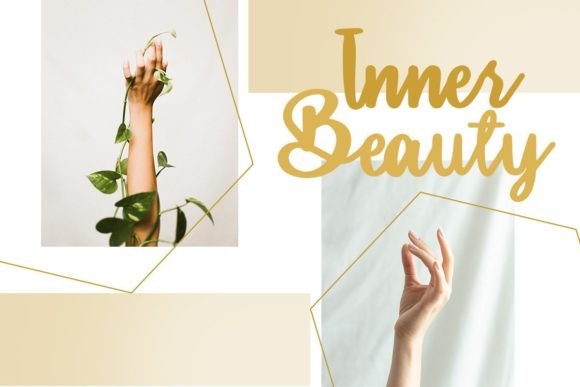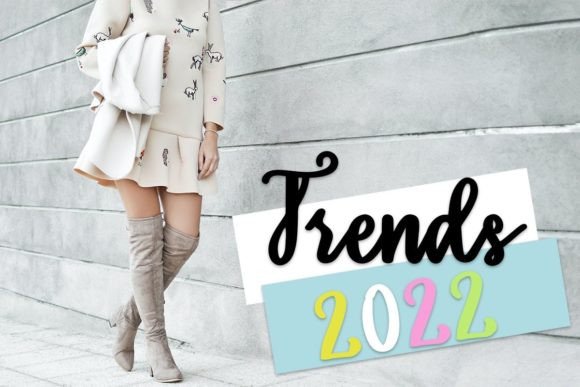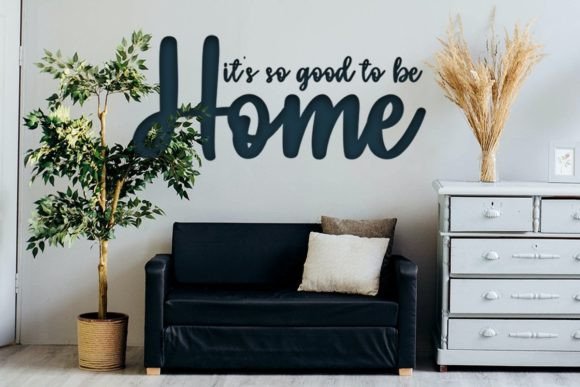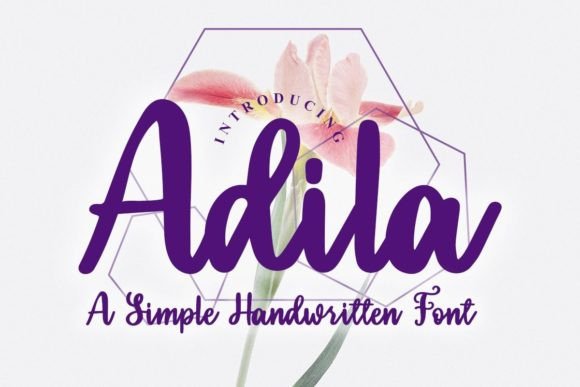
Introducing Adila Font: The Fun and Friendly Handwritten Font for Standout Designs
Are you tired of using the same old fonts for your designs? Look no further than Adila Font, a fun and friendly handwritten font that’s sure to add a touch of personality to any project. With its unique charm and versatility, Adila Font is the perfect choice for designers and crafters looking to create stunning designs that stand out from the crowd.
The Characteristics of Adila Font
Adila Font is a handwritten font that’s designed to be both fun and elegant. Its unique charm lies in its irregularities and quirks, which give it a personal and human touch. The font features:
- Handwritten style: Adila Font is a true handwritten font, with each letter and word carefully crafted to mimic the natural flow of handwriting.
- Unique charm: The font’s irregularities and quirks give it a personal and human touch that’s perfect for designs that need a touch of personality.
- Versatility: Adila Font is highly versatile and can be used for a wide range of designs, from wedding invitations and greeting cards to logos and business cards.
Uses for Adila Font
Adila Font is perfect for a wide range of designs, including:
- Wedding invitations: Add a touch of romance and whimsy to your wedding invitations with Adila Font.
- Thank you cards: Express your gratitude in style with Adila Font’s friendly and approachable vibe.
- Quotes: Make your quotes stand out with Adila Font’s unique charm and character.
- Greeting cards: Create beautiful and personalized greeting cards for any occasion with Adila Font.
- Logos: Use Adila Font to create a unique and memorable logo for your business or brand.
- Business cards: Add a touch of personality to your business cards with Adila Font’s friendly and approachable style.
Why Choose Adila Font?
So why choose Adila Font for your designs? Here are just a few reasons:
- Easy to read: Despite its handwritten style, Adila Font is highly legible and easy to read, even at small sizes.
- Highly versatile: Adila Font can be used for a wide range of designs, from formal to informal and everything in between.
- Unique and distinctive: Adila Font’s unique charm and character make it stand out from more traditional fonts.
Tips for Using Adila Font
Here are a few tips for getting the most out of Adila Font:
- Experiment with sizes and colors: Adila Font looks great in a variety of sizes and colors, so don’t be afraid to experiment and find the perfect combination for your design.
- Pair with other fonts: Adila Font pairs well with a variety of other fonts, so try combining it with other fonts to create a unique and interesting design.
- Use it for emphasis: Adila Font’s unique charm and character make it perfect for use as an accent font to add emphasis to certain words or phrases.
Adila Font is a fun and friendly handwritten font that’s perfect for designers and crafters looking to add a touch of personality to their designs. With its unique charm and versatility, Adila Font is sure to become a go-to font for anyone looking to create stunning designs that stand out from the crowd. So why not give Adila Font a try today and see the difference it can make in your designs?